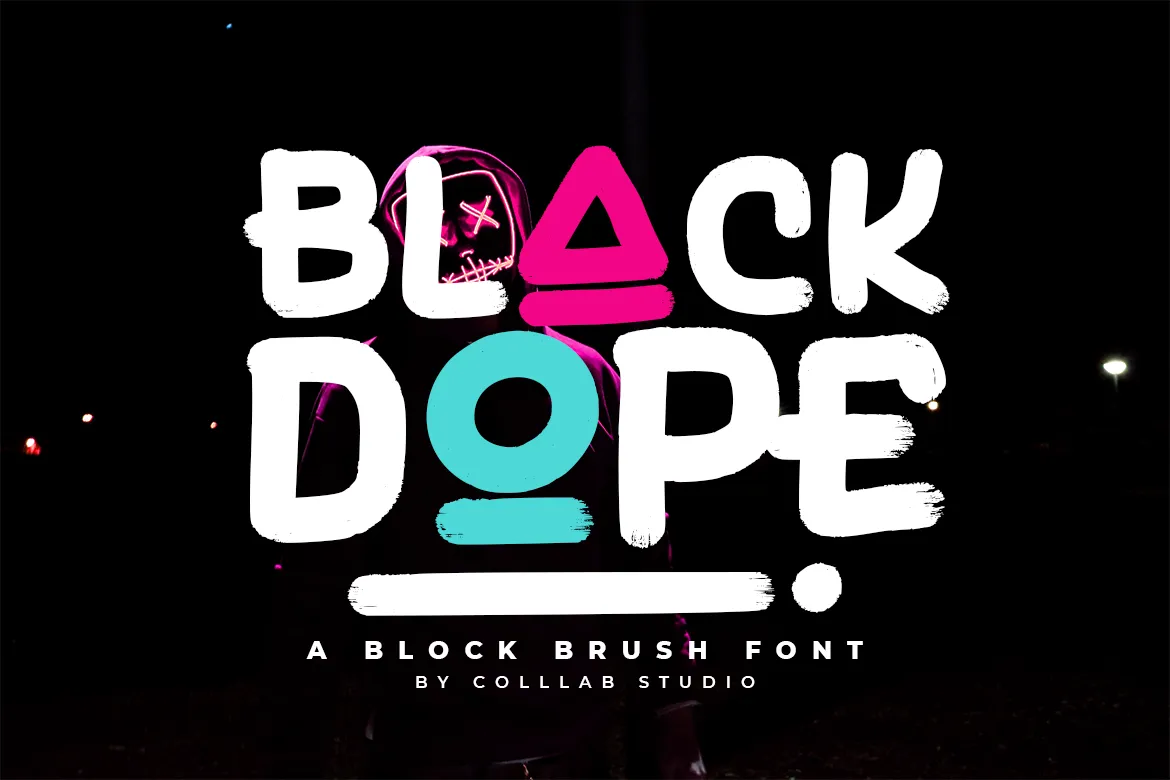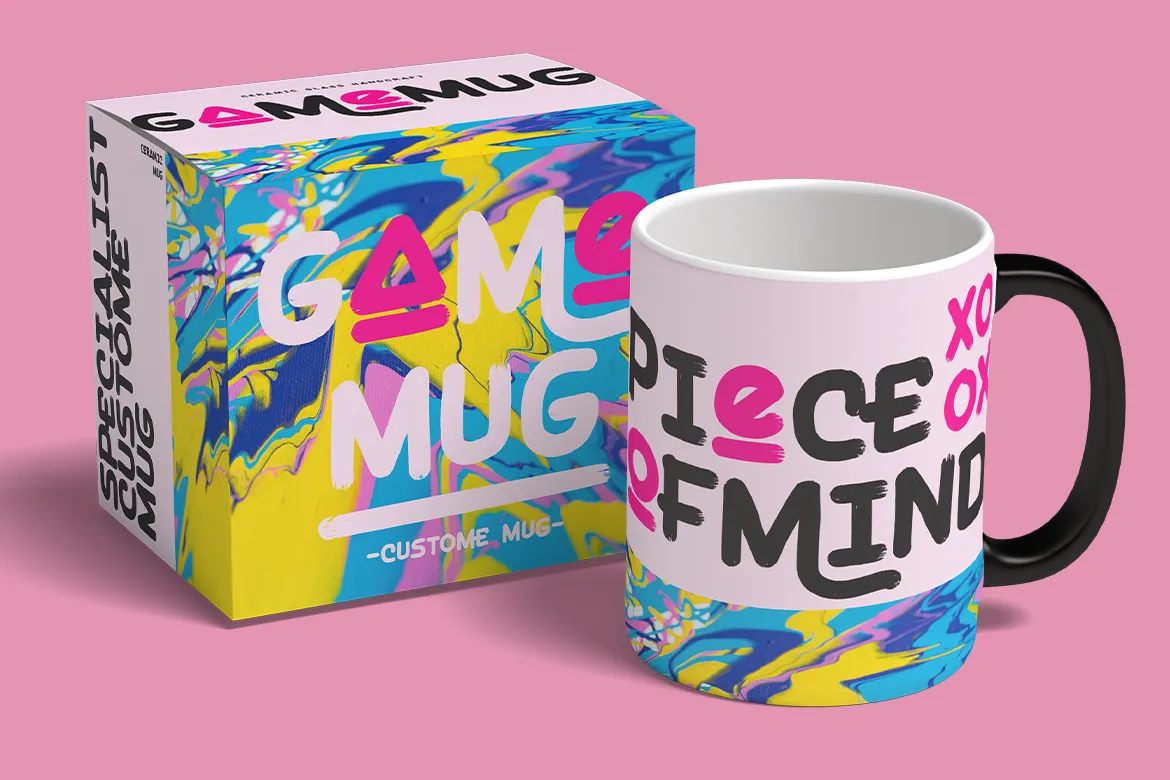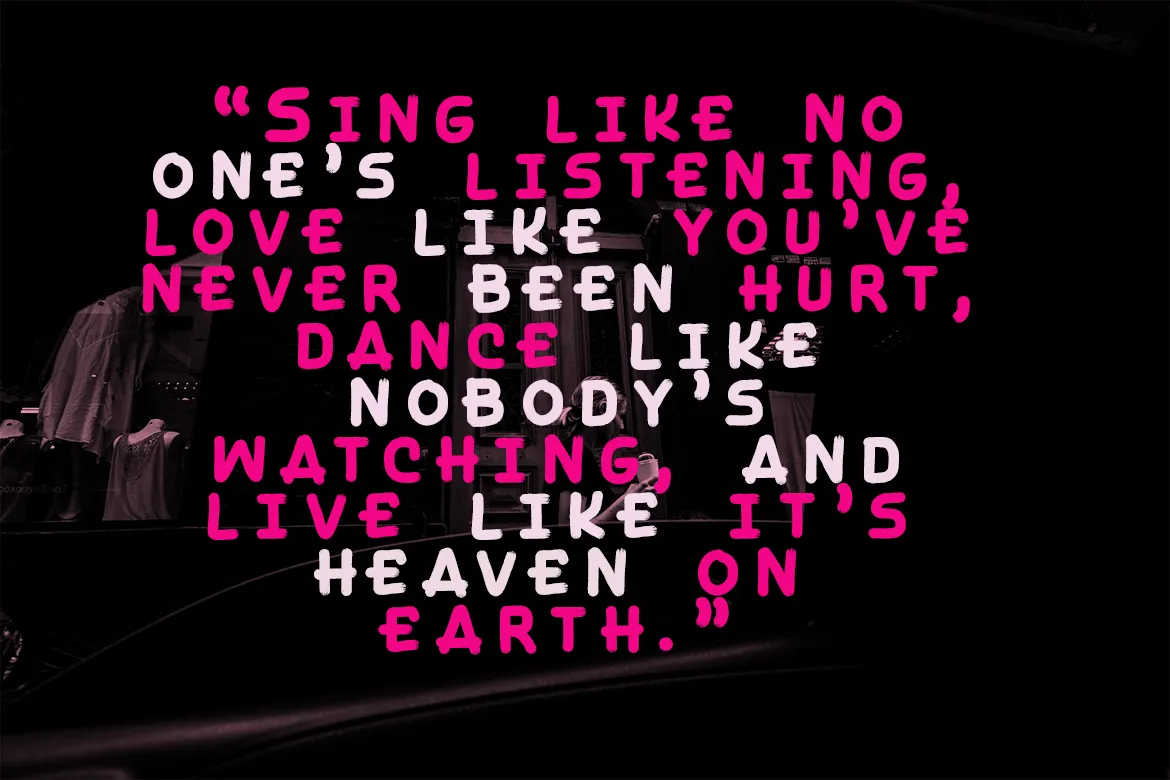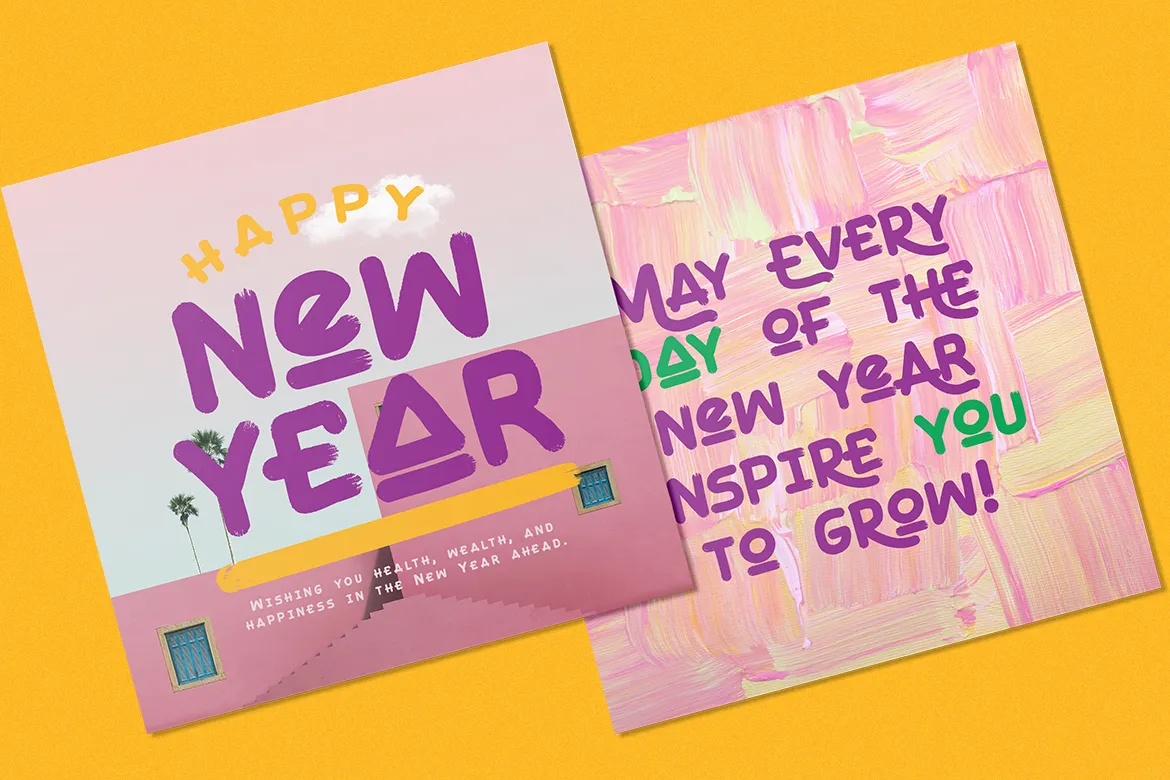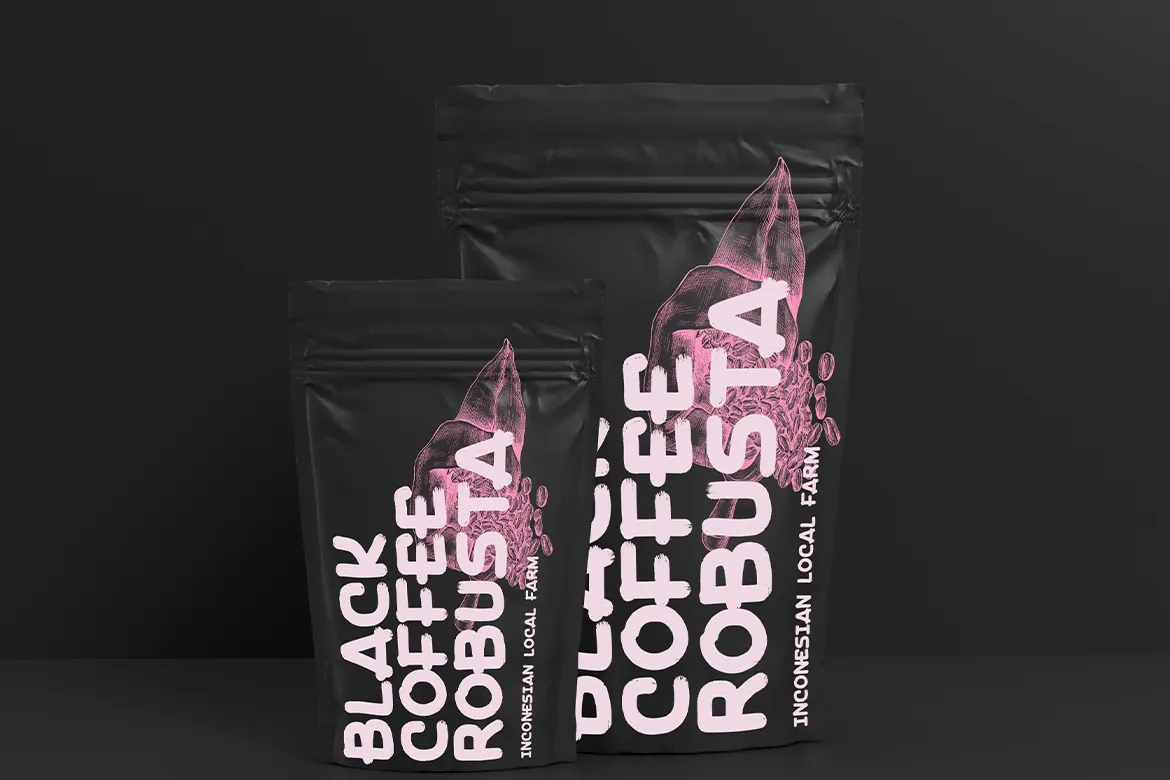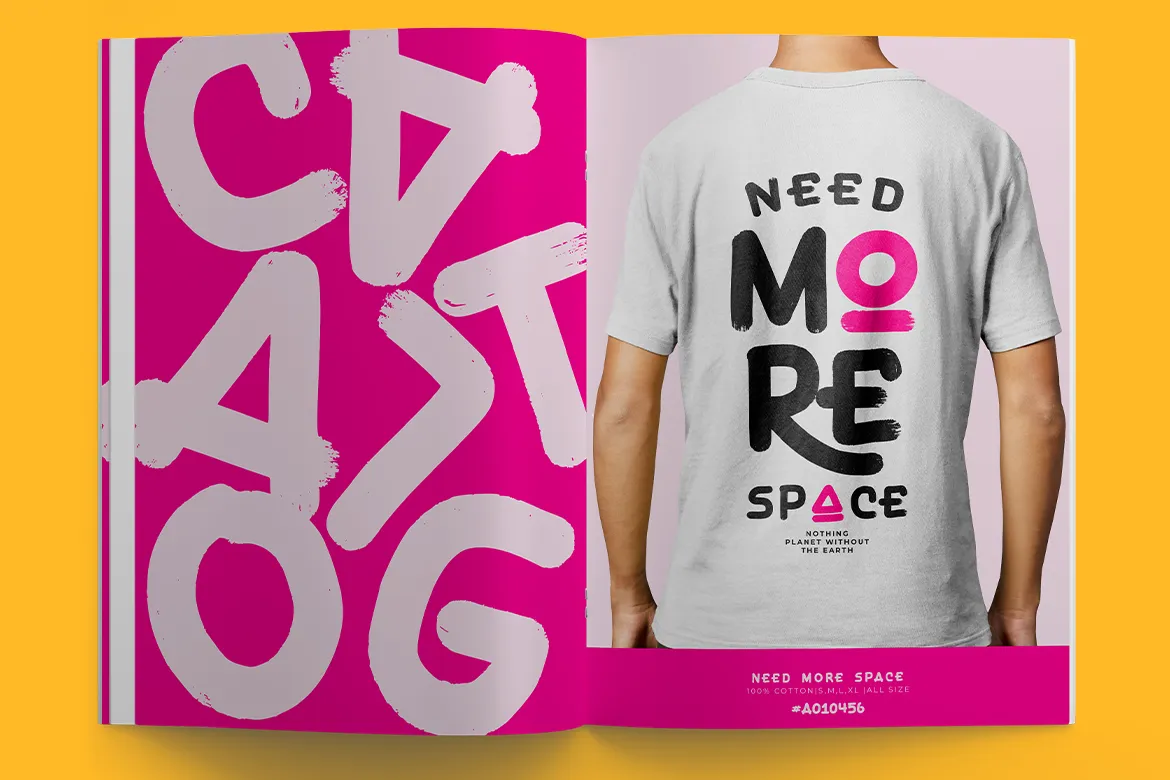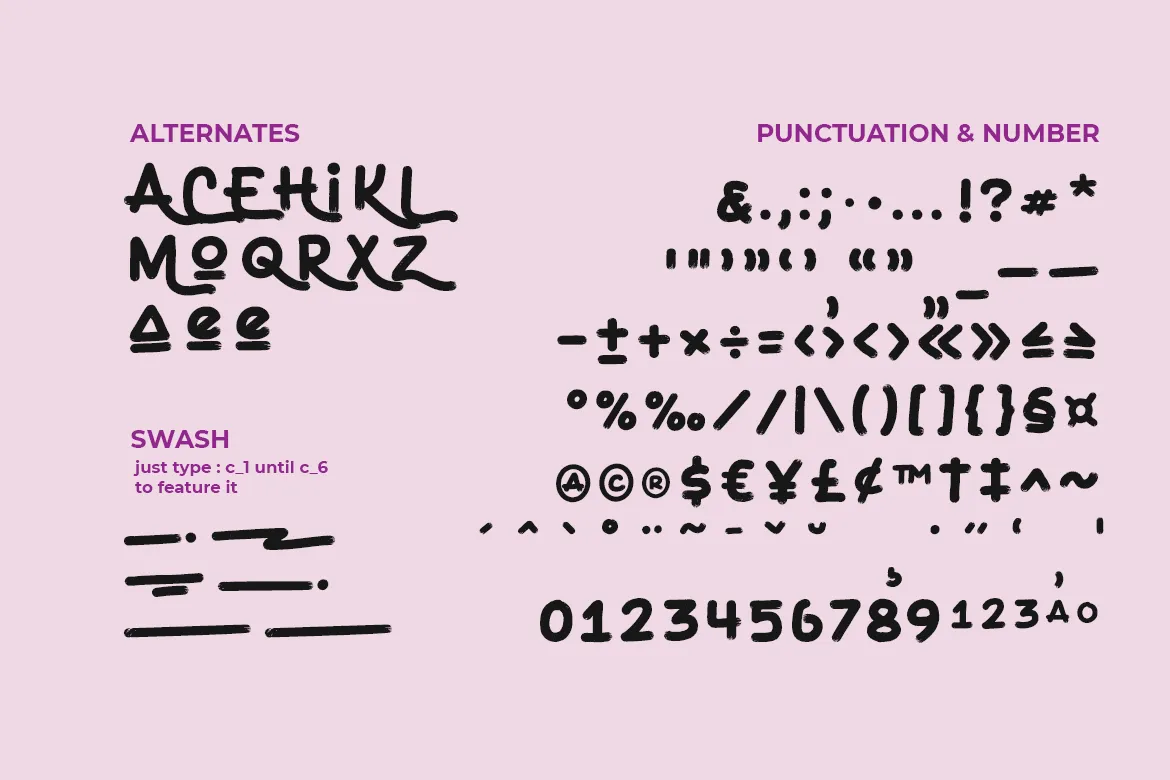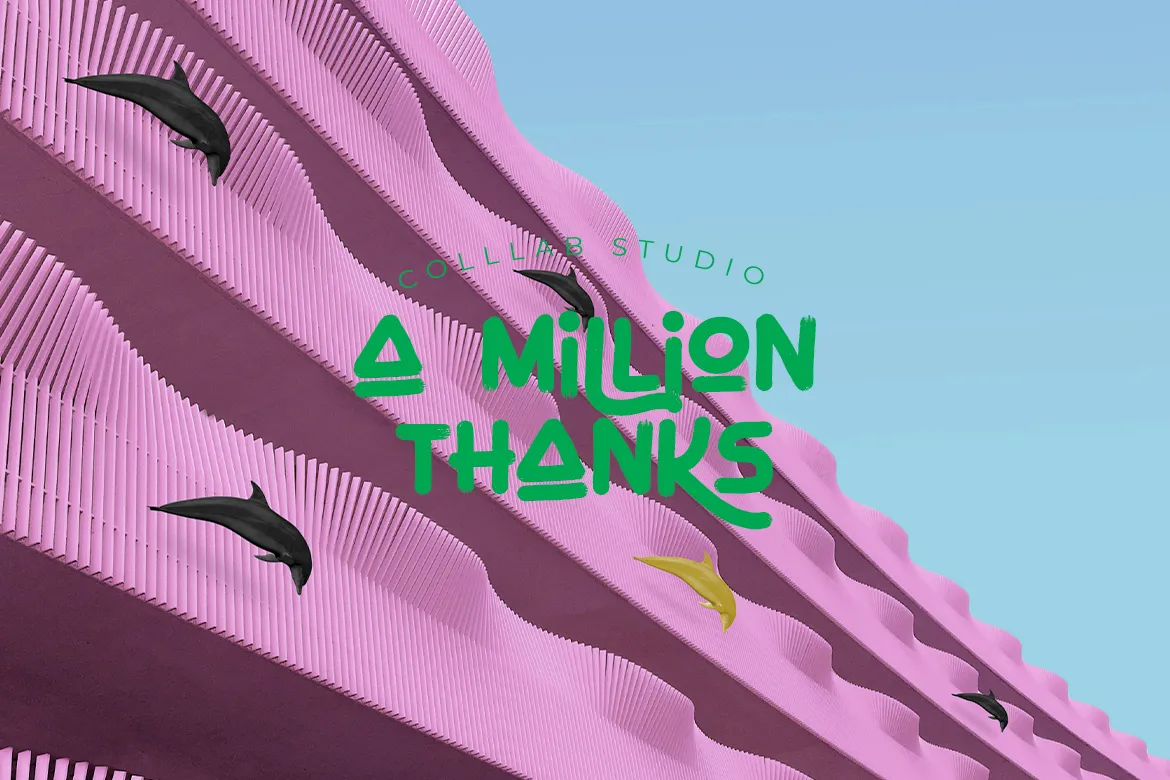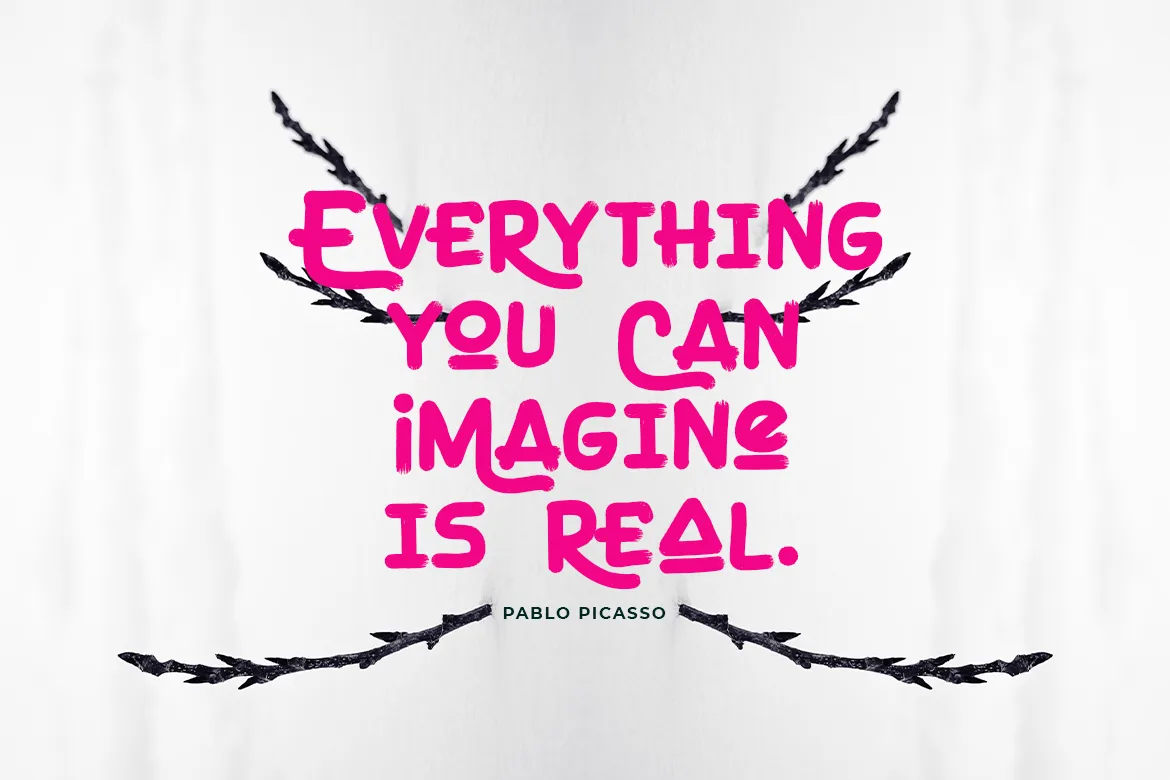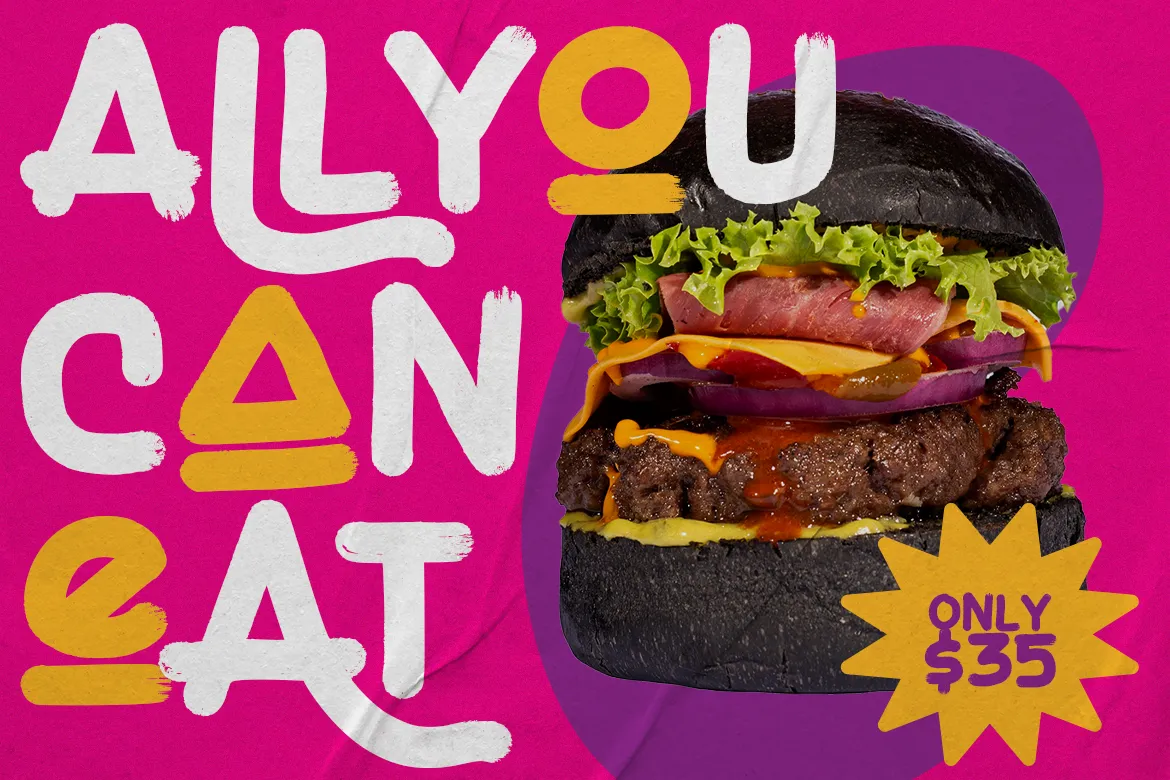
Black Dope
INTRODUCING BLACK DOPE — the unapologetic brush font born on warehouse walls and raised on hip-hop beats.
Every character was spray-painted, rolled, and splattered onto raw brick, then captured at 600 DPI and rebuilt from 376 meticulously traced glyphs to retain every bristle streak, overspray halo, and paint-chip imperfection. The result is a brutally honest, high-impact typeface that drips with street credibility.
BLACK DOPE’s all-caps alphabet stands tall and wide, each letter cut like a stencil yet flowing like a freestyle rhyme. Tight spacing and aggressive angles make words lock together in powerful blocks, while alternate drips, slashes and cracked terminals let you dial the chaos up or down. Whether you’re branding a streetwear label, designing a trap mixtape cover, or screaming a message across protest posters, BLACK DOPE shouts before the ink is dry.
• Glyphs : 376 total glyphs covering A–Z, numerals, punctuation, currency, and full multilingual Latin support
• Stylistic Sets : alternate characters
• Multilingual : Supports 90+ languages including Western, Central & Eastern European, Vietnamese, and Nordic